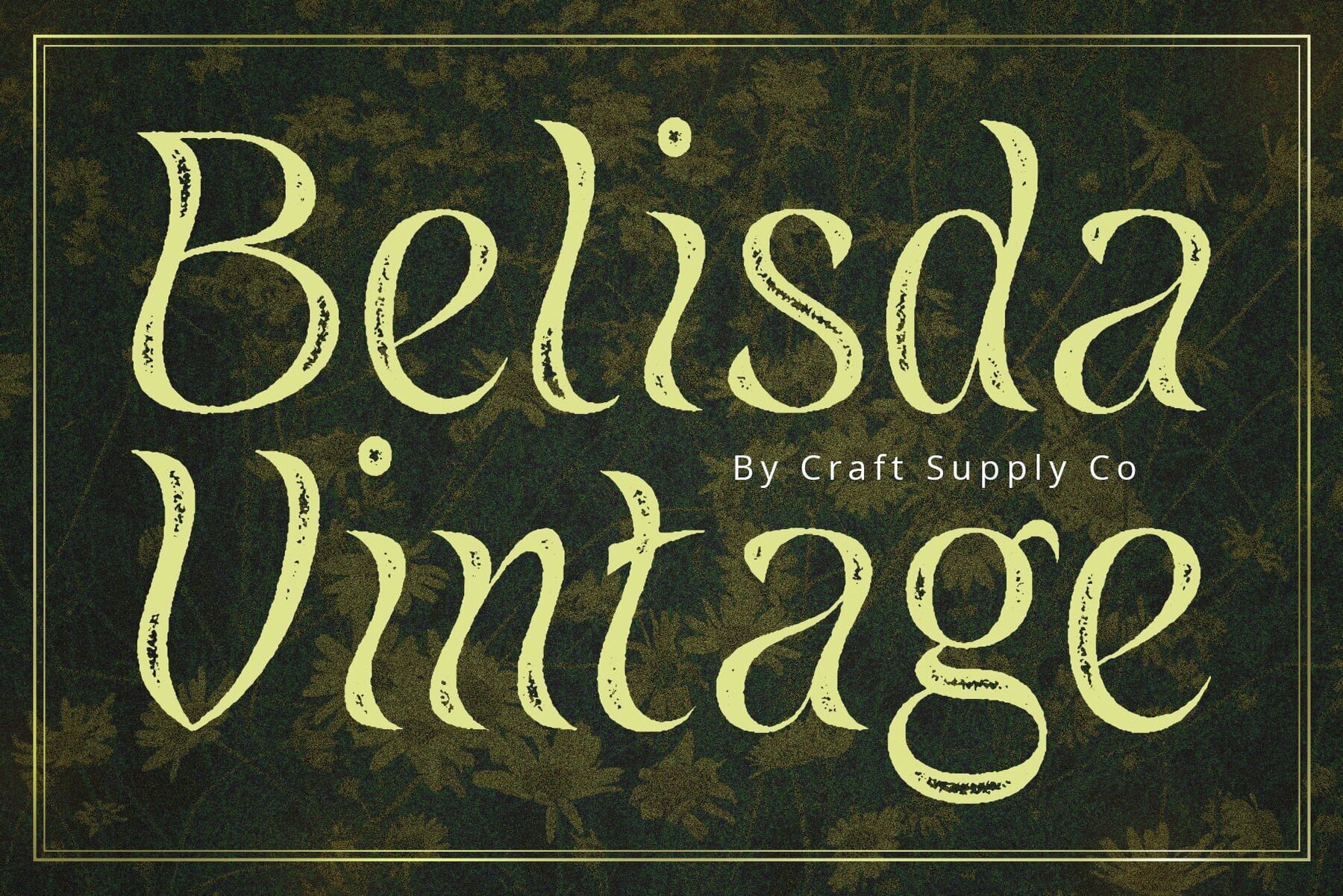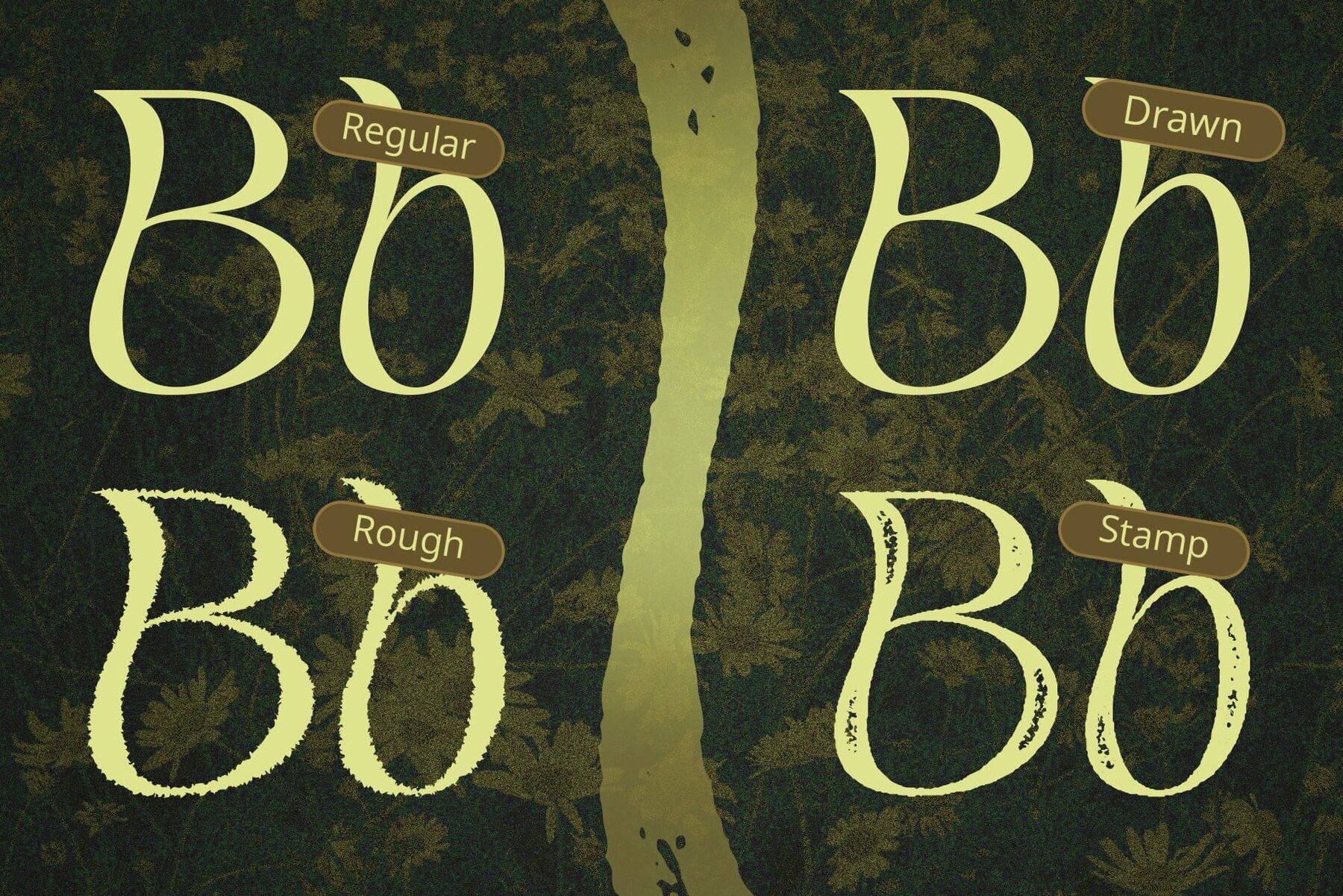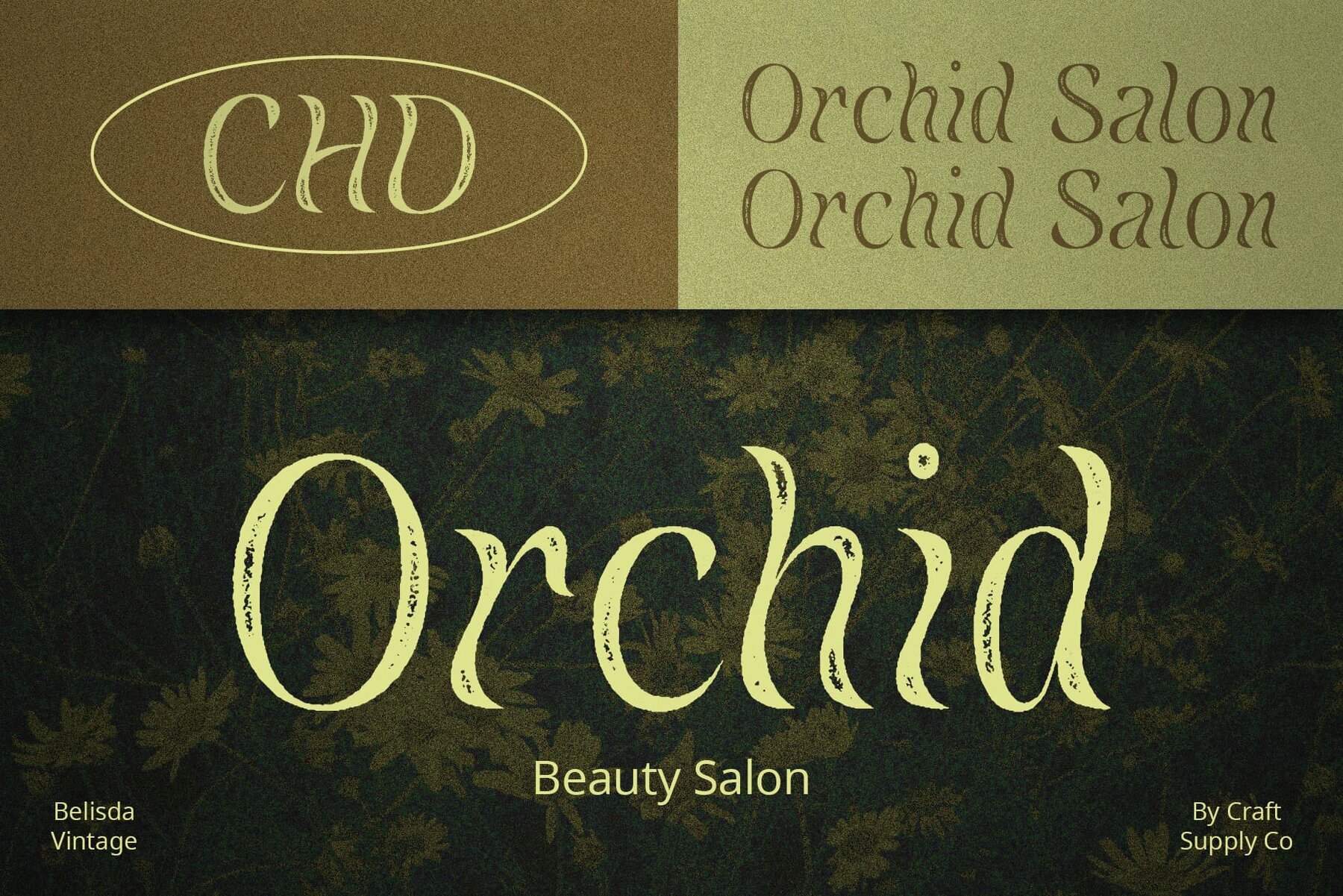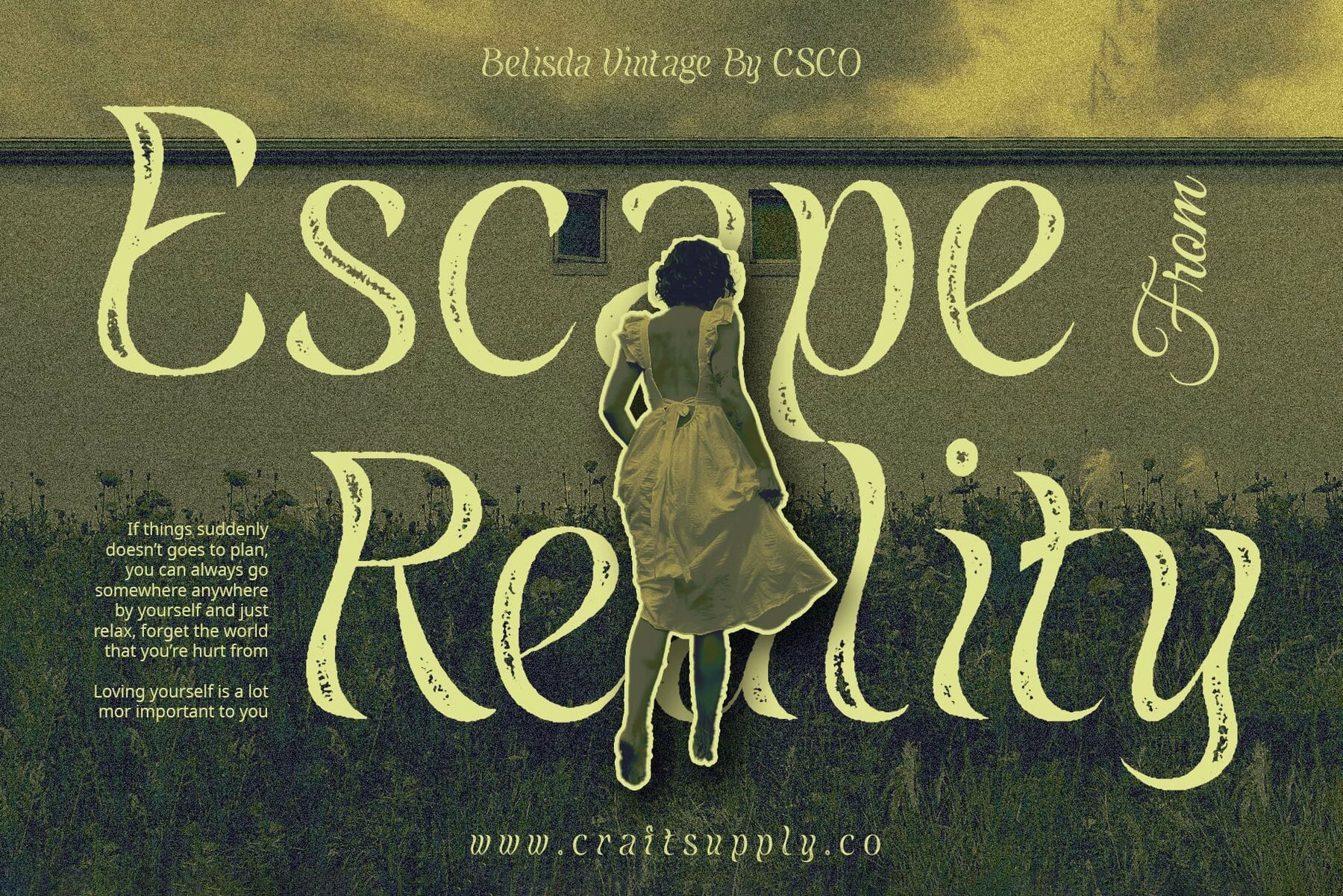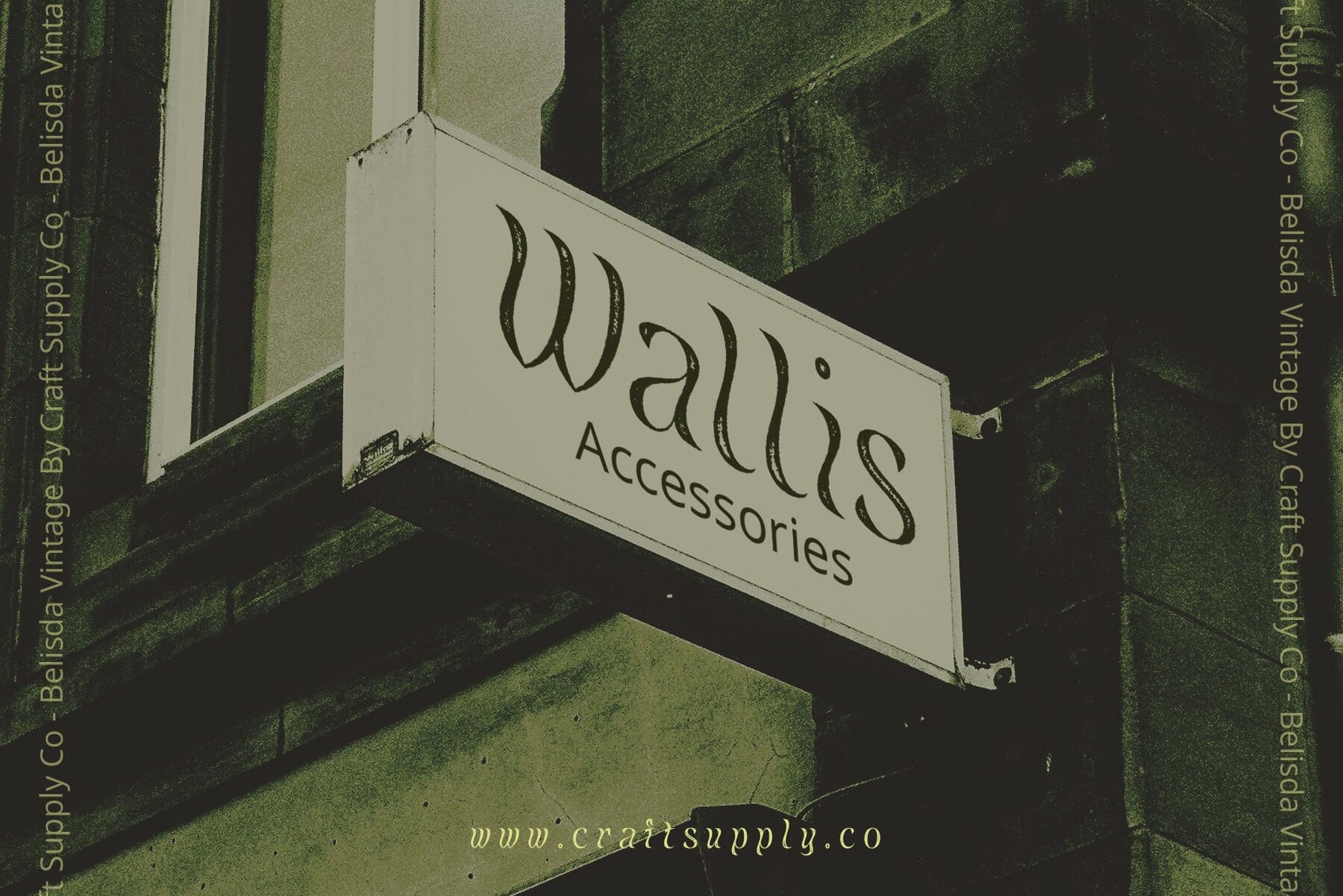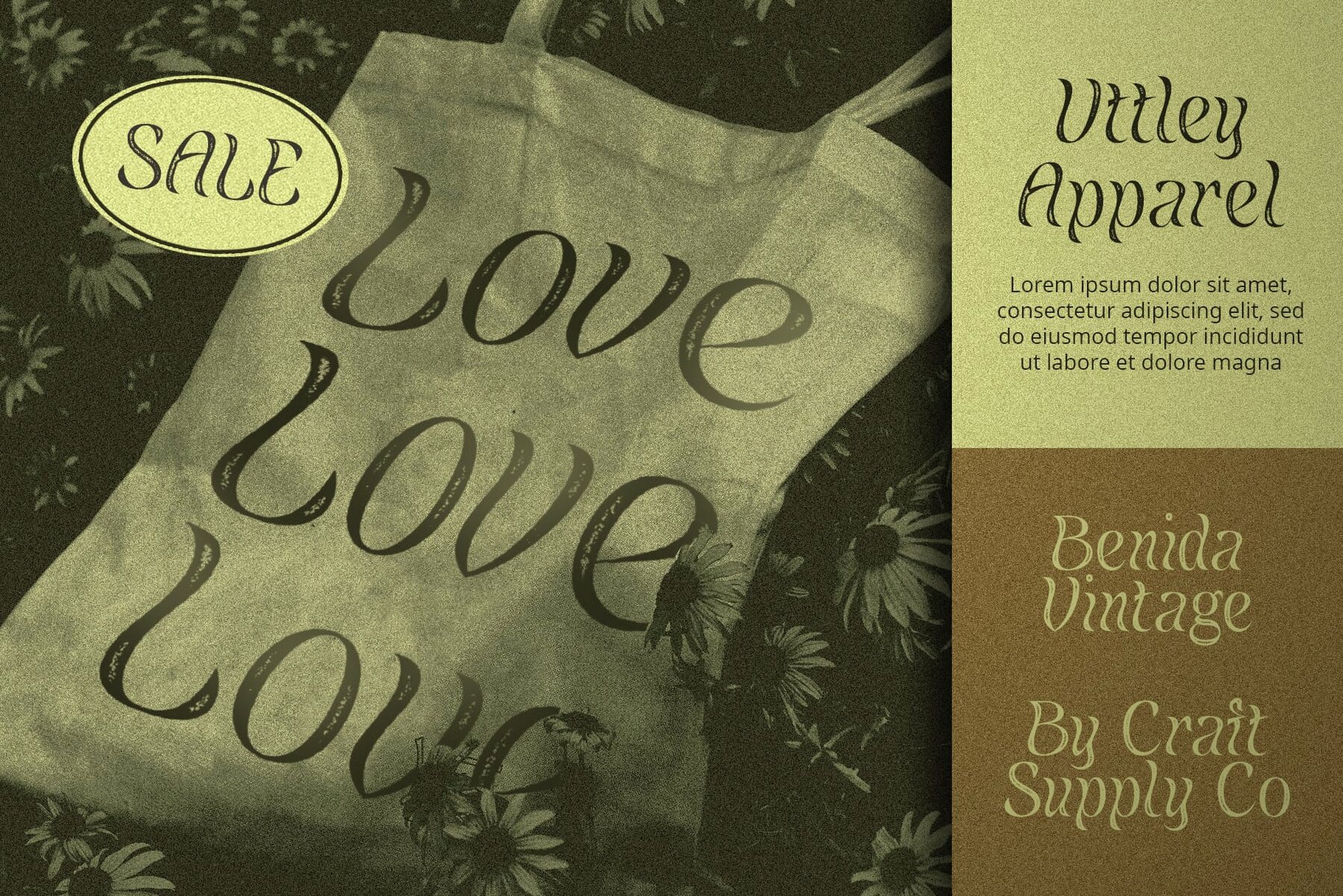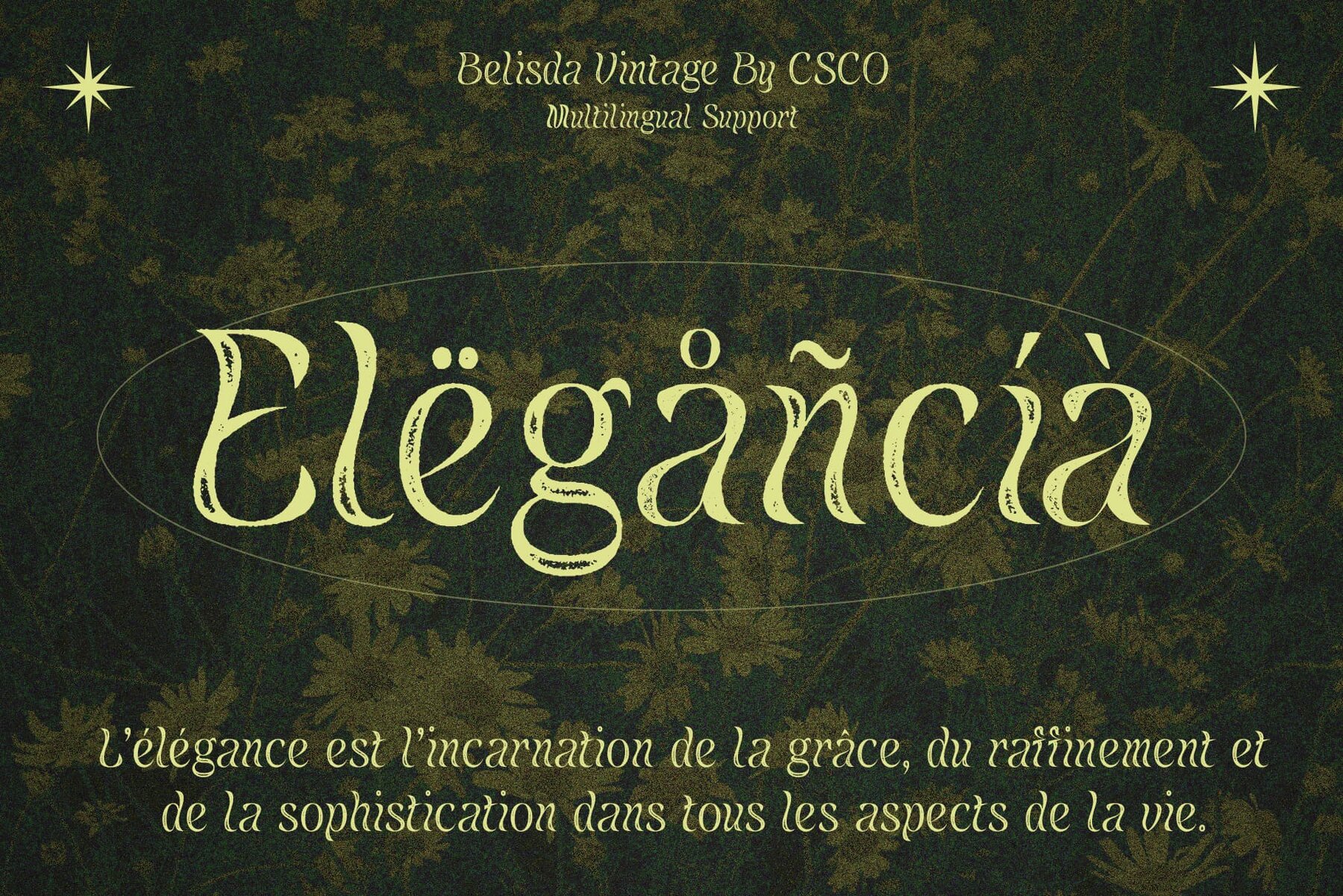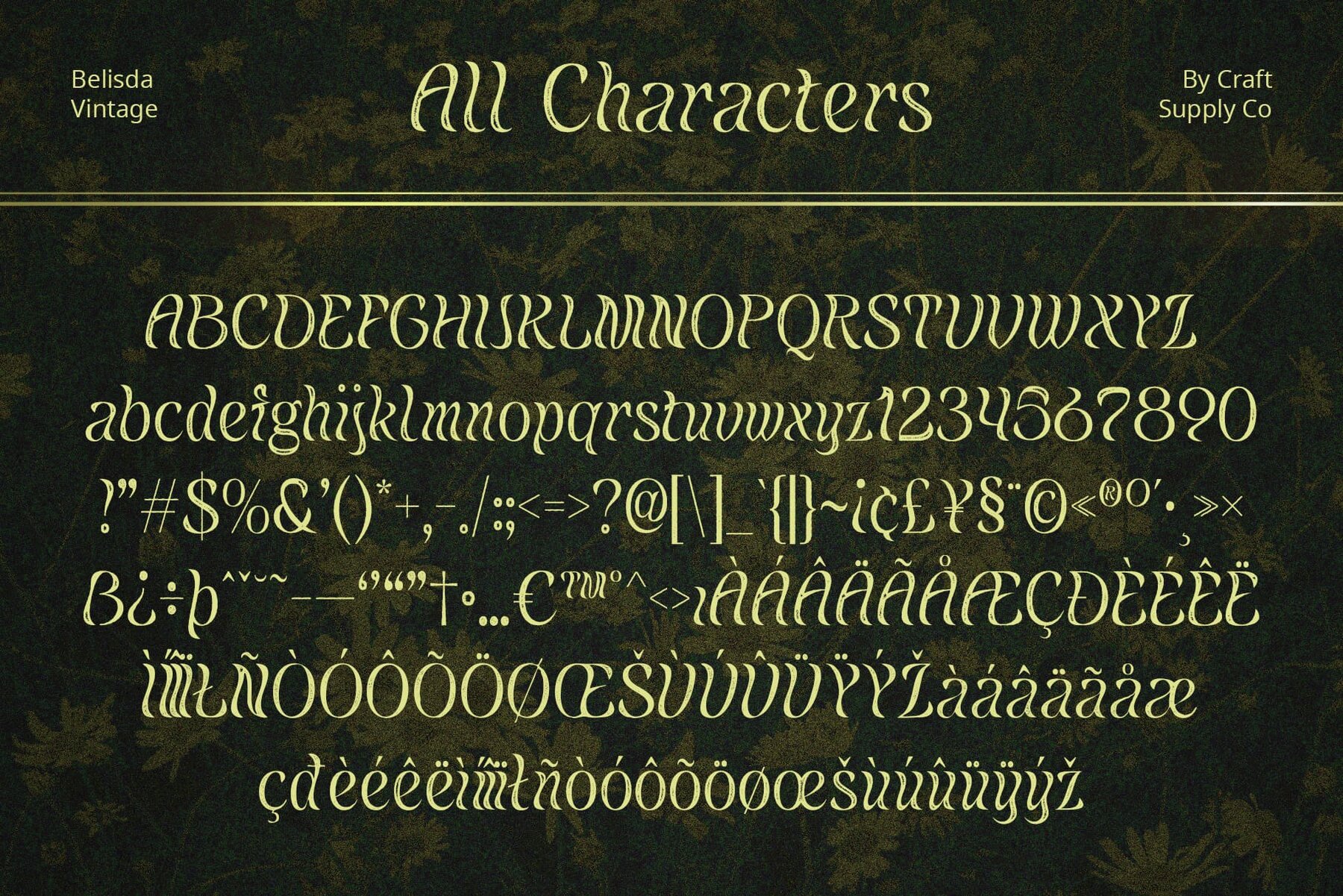
Belisda Vintage Font
Belisda Vintage by Craft Supply Co. is a typeface that encapsulates the elegance and sophistication of the Art Nouveau era. This font’s unique design and vintage charm make it an excellent choice for various design projects. The font features a flowing, leaf-inspired design that adds a touch of natural beauty to any project. Its graceful curves and organic shapes draw inspiration from nature, exuding a sense of elegance and sophistication. Crafted in the style of Art Nouveau, Belisda Vintage pays homage to this iconic artistic movement known for its intricate details and ornate designs. The font captures the essence of Art Nouveau with its elaborate flourishes and decorative elements. Enhanced with a rough stamp drawn effect, this font lends a vintage appearance reminiscent of old-world craftsmanship. This effect adds character and depth to each letter, evoking a sense of nostalgia and authenticity. Despite its vintage-inspired design, Belisda Vintage is versatile and adaptable to various projects. From branding and packaging to posters and invitations, it adds a touch of timeless elegance and sophistication. No specialized software is needed to utilize this typeface.Belisda Vintage: Embracing Art Nouveau Elegance
Flowing Leaf-Inspired Design
Art Nouveau Influence
Vintage Charm with Rough Stamp Drawn Effect
Versatile Application